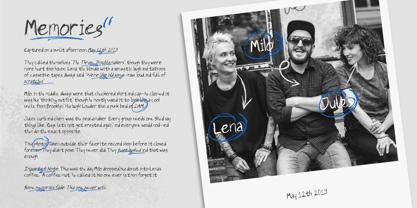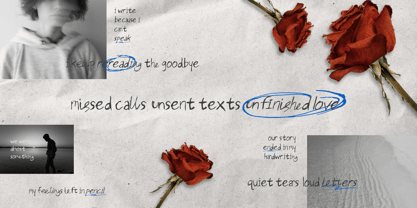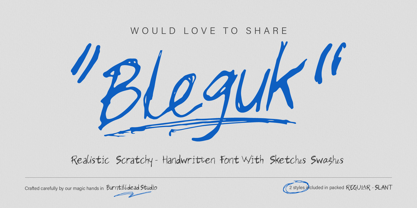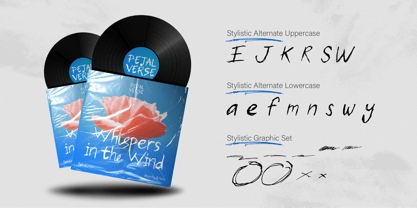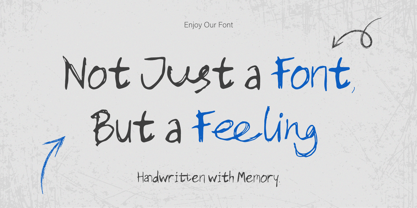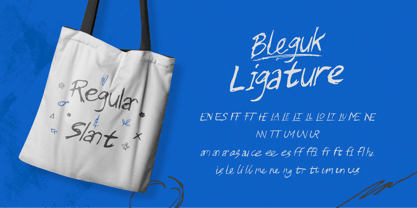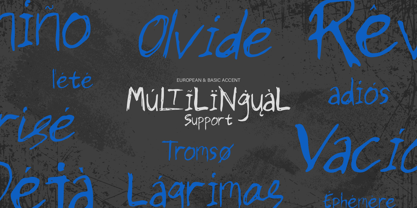
Bleguk
by Burntilldead
The Bleguk Font Family was designed by Eric Kurniawan and published by Burntilldead. Bleguk contains 2 styles and family package options.
Meet Bleguk, an artsy, chaotic handwritten font with a raw and sketchy vibe. This font has a strong and unique personality that stands out in any design. It’s loud, expressive, and full of character, like scribbles on a journal or messy sketches on a creative wall full of stories.
The scratchy texture gives it that real, handmade feel, like using a marker or pen on random paper. Bleguk comes in 2 styles: Regular and Slant, so you can mix things up depending on your vibe.
What makes it even more fun? Bleguk includes a sketches & swashes graphic set to boost the playful energy and support your design flow.
Perfect for indie/punk music posters, visual journaling, digital collages or scrapbooks, book covers, IG stories, or anything with a storytelling vibe.
• Uppercase & Lowercase
• Number
• Punctuation
• Alternates
• Ligatures
• Stylistic Graphic Set
• Multilingual